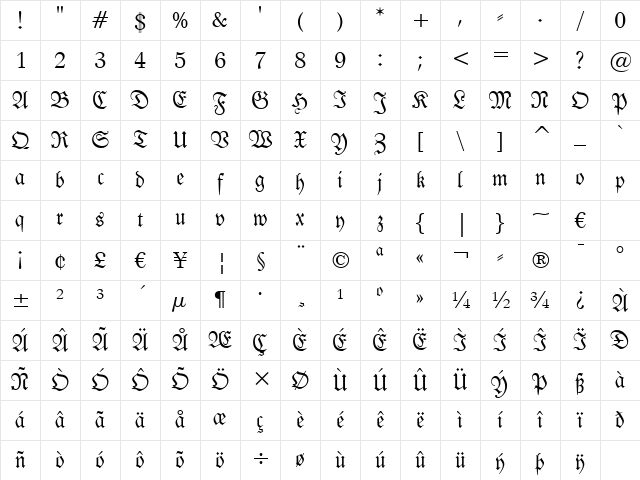
Fraktur BT Regular
Fraktur BT Family
Fraktur BT Regular
Design Context for Fraktur BT
Fraktur BT draws on the rich tradition of blackletter calligraphy, with dense, angular strokes that evoke medieval manuscripts and old-world craftsmanship.
Font Pairing: Pair with a clean neutral sans-serif for body copy to let Fraktur BT's character lead without overwhelming the composition.
Pro Tip: Reserve Fraktur BT for display and logo use - pair it with a clean sans-serif for body copy to prevent the composition from feeling oppressive.